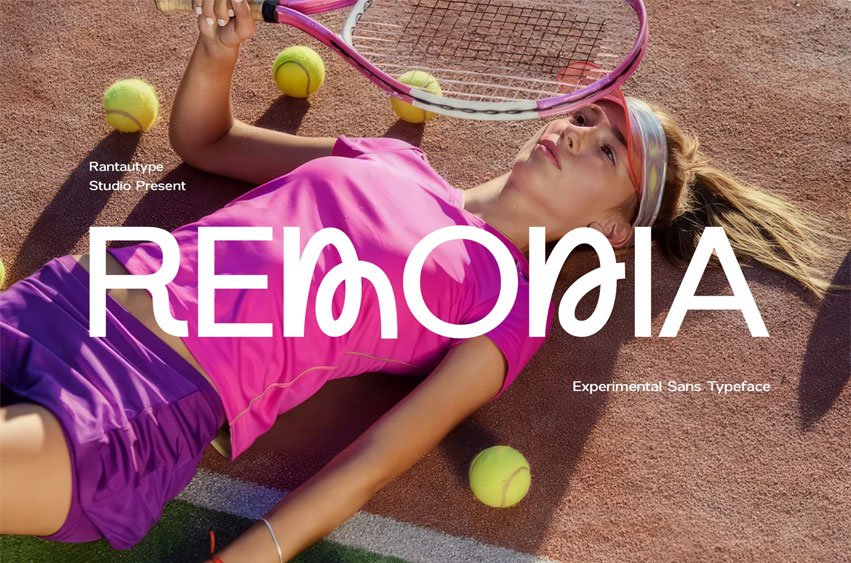
Remodia Font is an experimental sans-serif typeface that features playful alternate combinations. With its fun and flowing curves, Remodia is visually appealing and allows for flexibility in mixing and matching to create the perfect design.
Remodia is an excellent choice for a variety of creative endeavors, including chic lifestyle designs such as logos, advertisements, watermarks on photography, stationery, branding projects, displays, magazines, invitations, corporate branding, product design, labels, business projects, and many other projects that require a modern or playful touch.